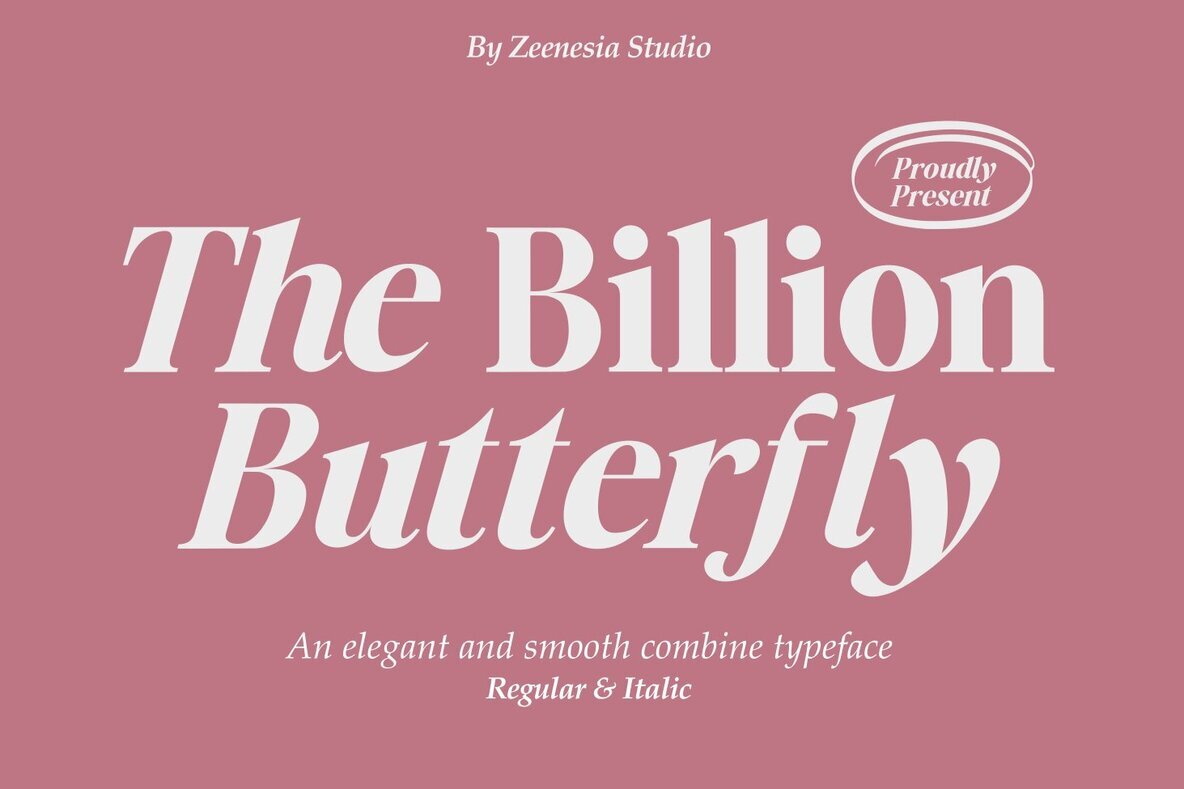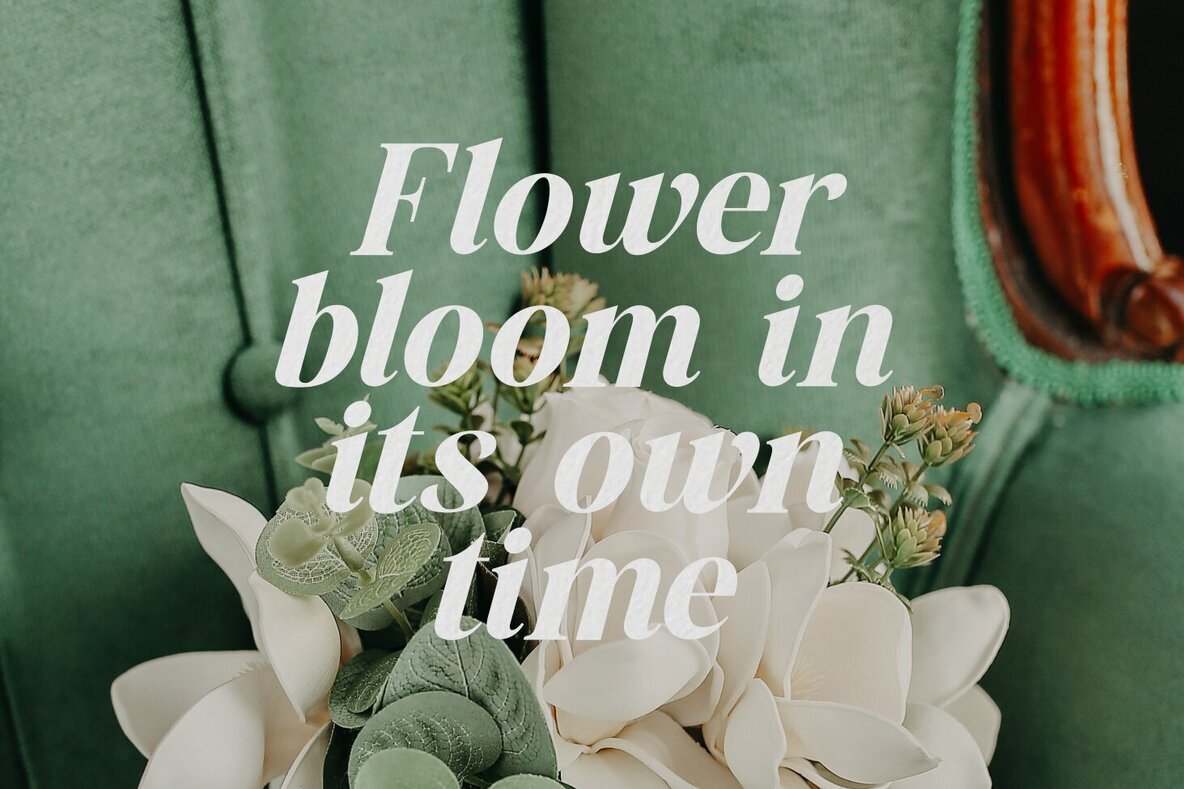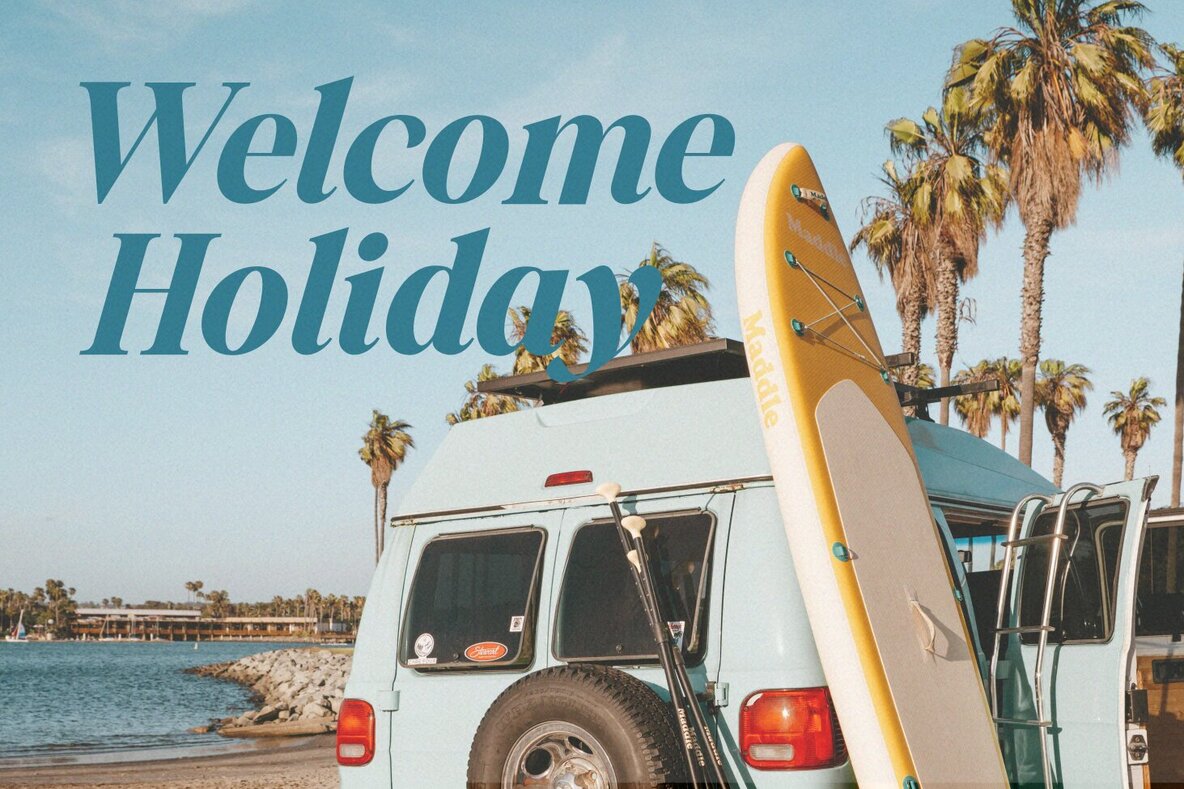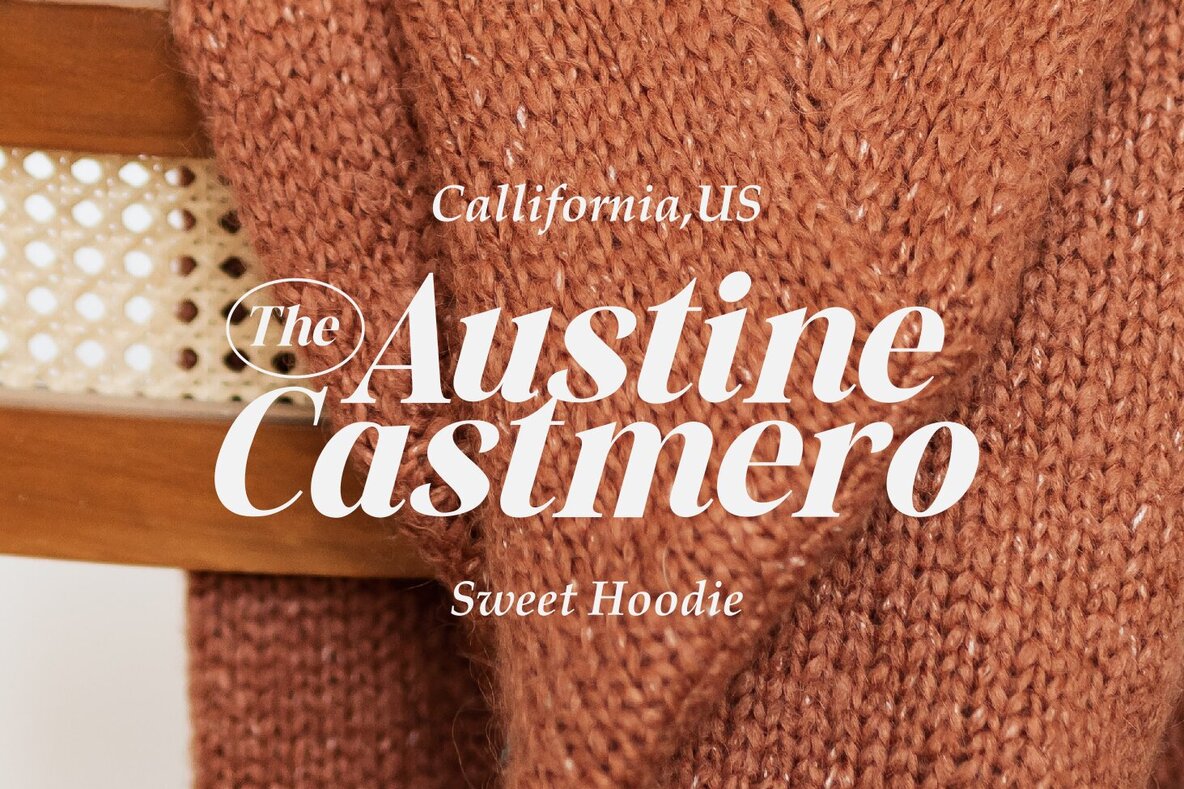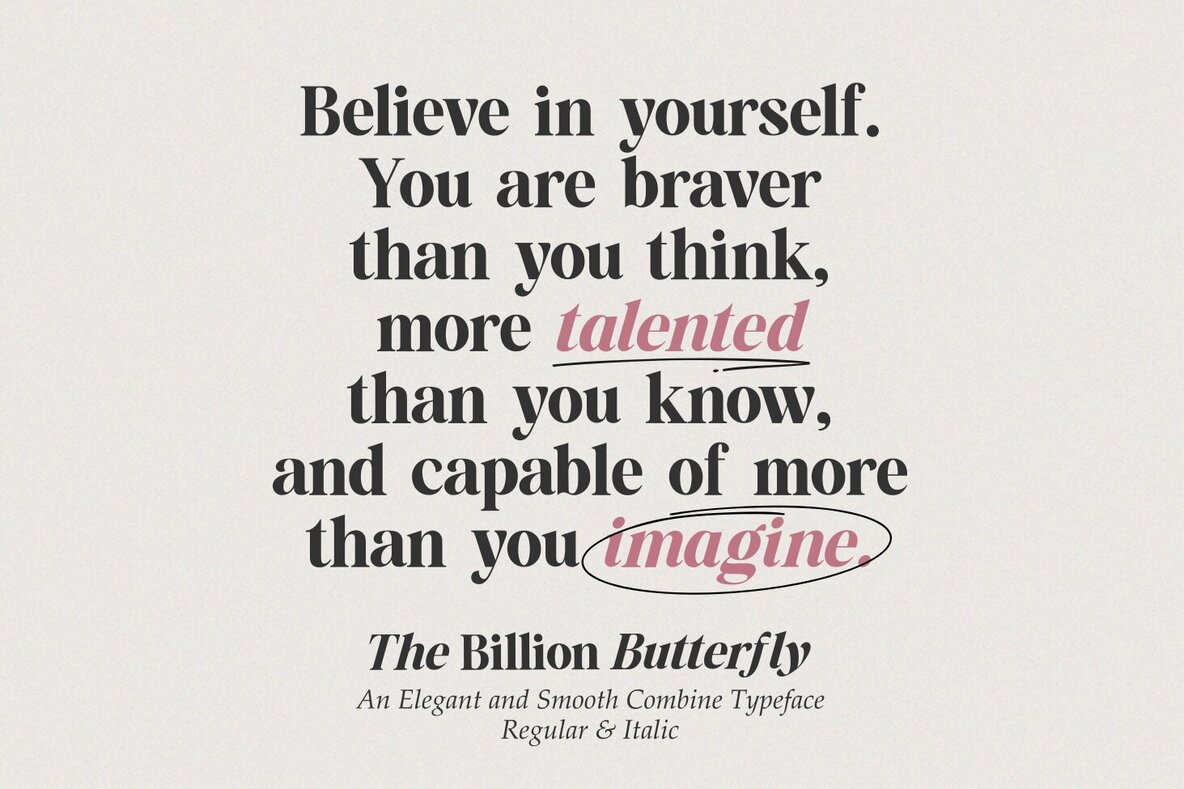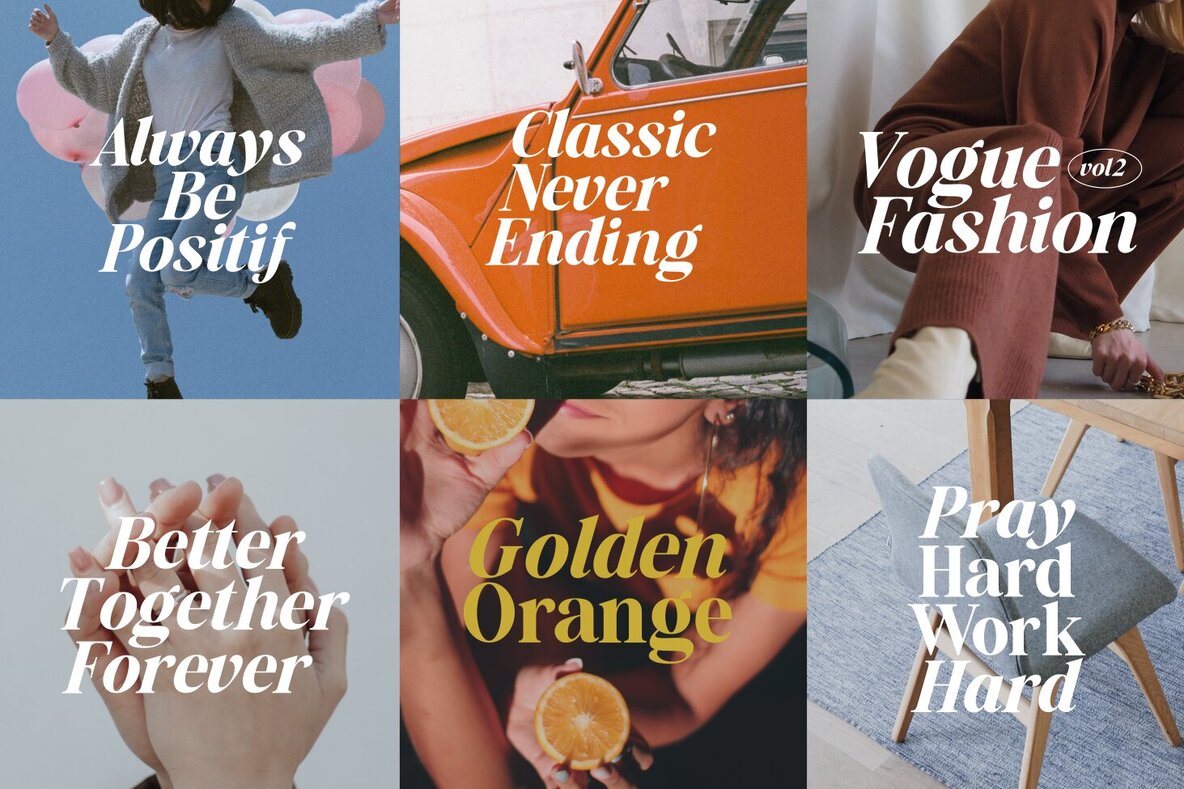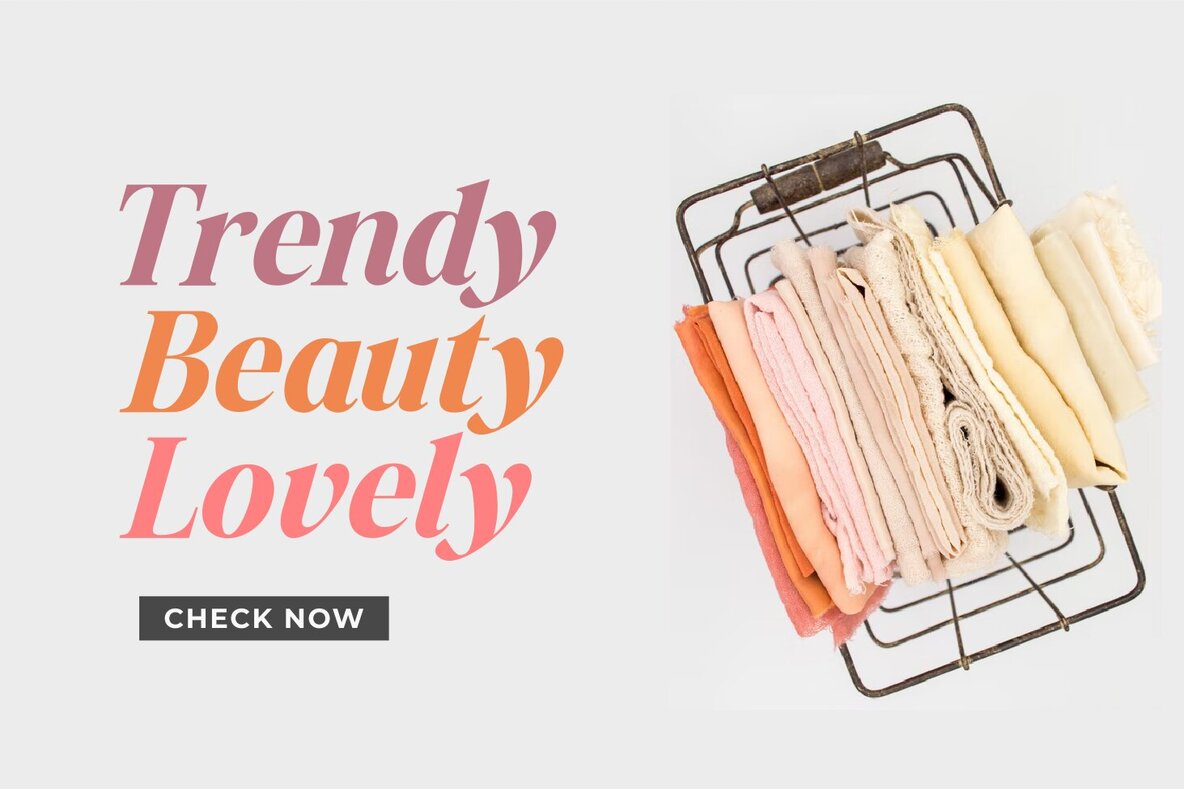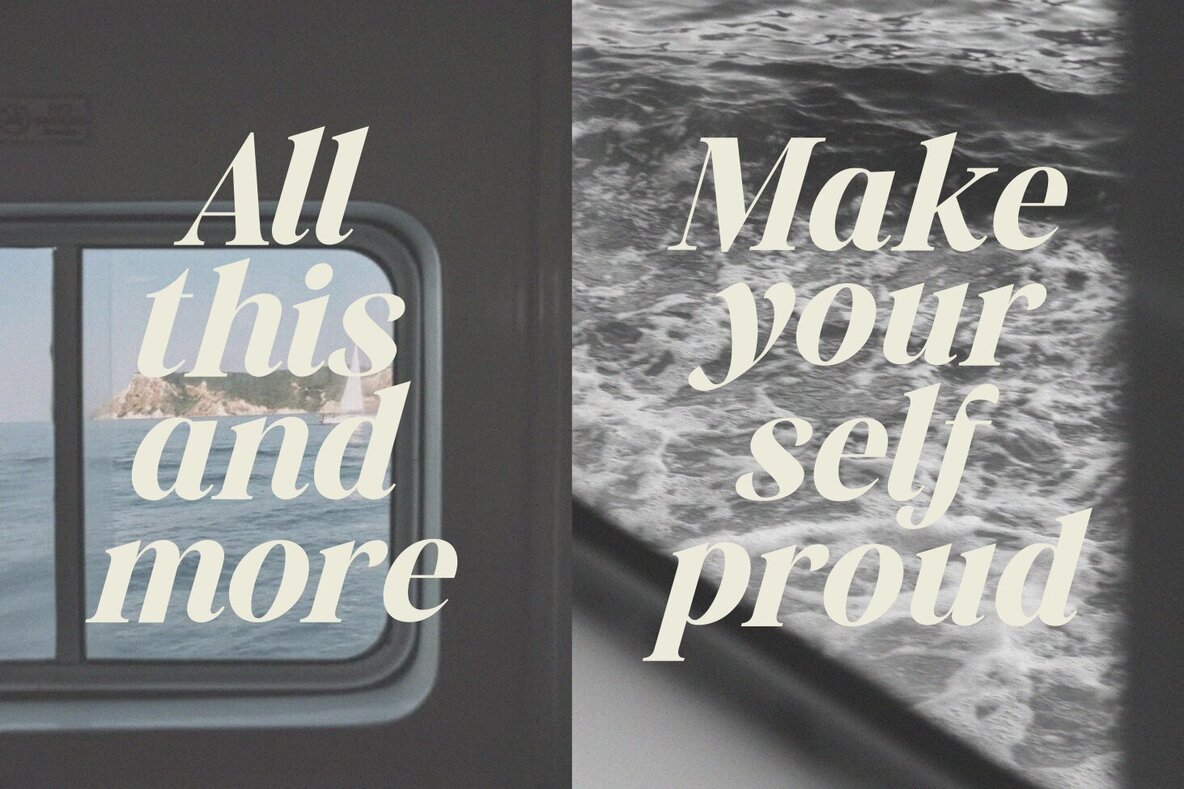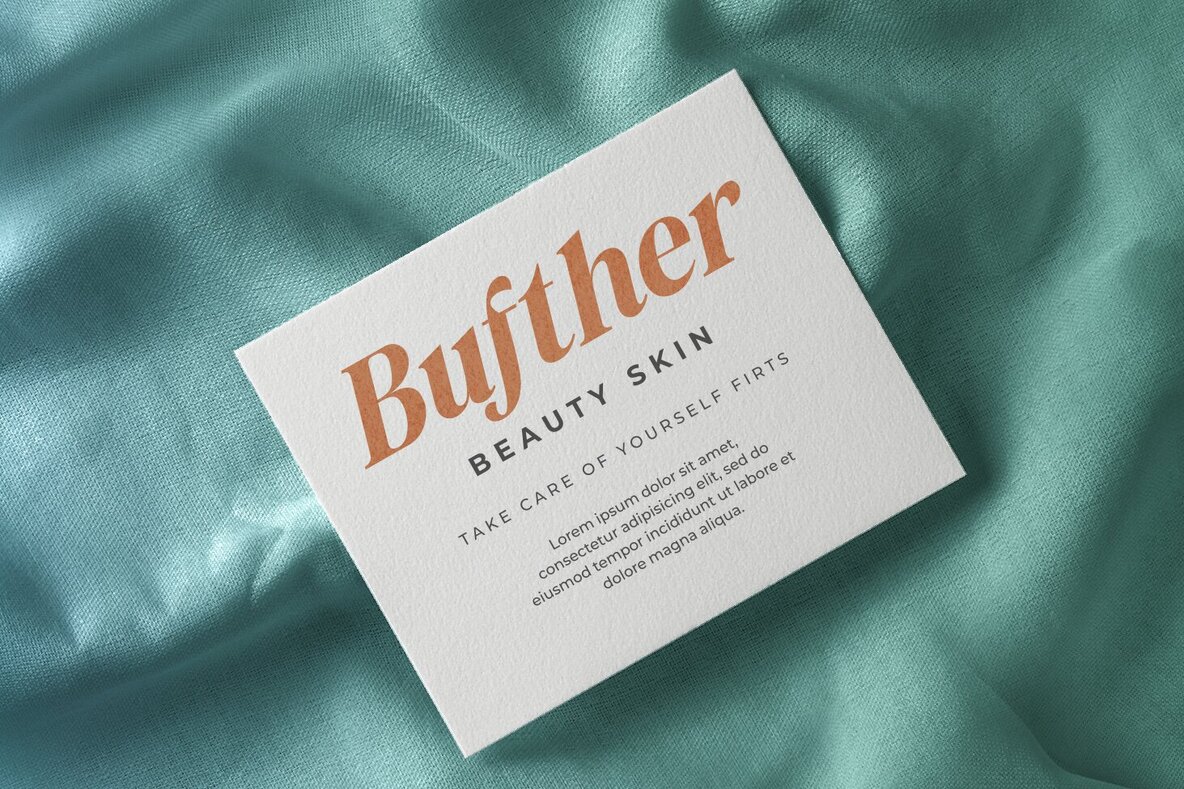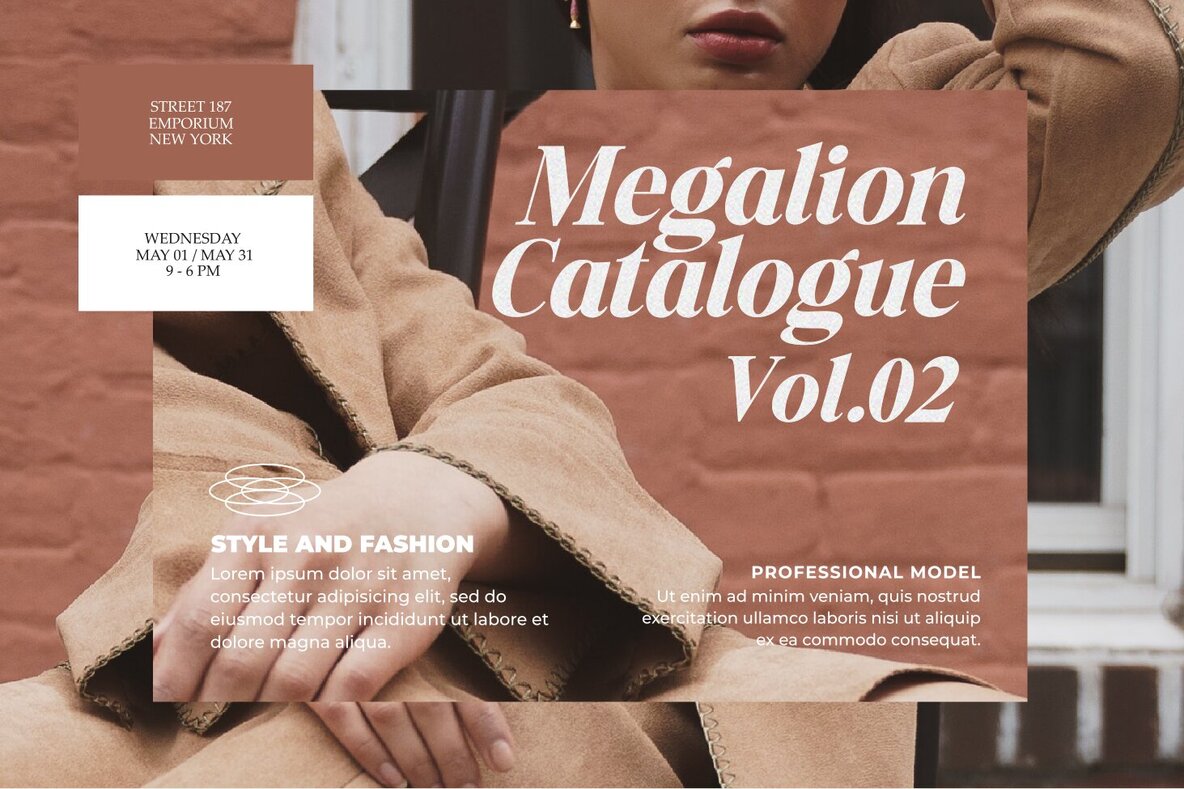
The Billion Butterfly Font
The Billion Butterfly is an elegant and smooth serif typeface designed for versatility. Its graceful strokes make it suitable for a wide range of applications, enhancing both print and digital designs. We hope you enjoy using The Billion Butterfly. Please feel free to share any thoughts or feedback. Thank you for choosing our font!The Billion Butterfly: Elegant Serif Typeface